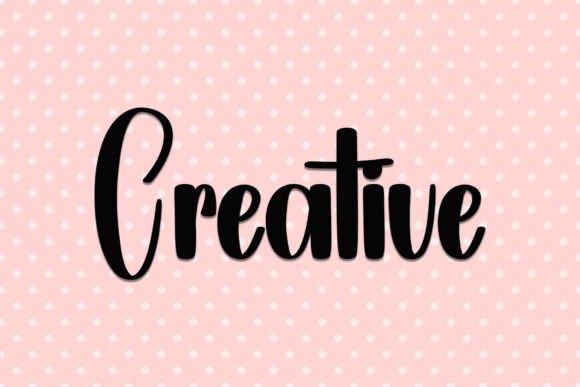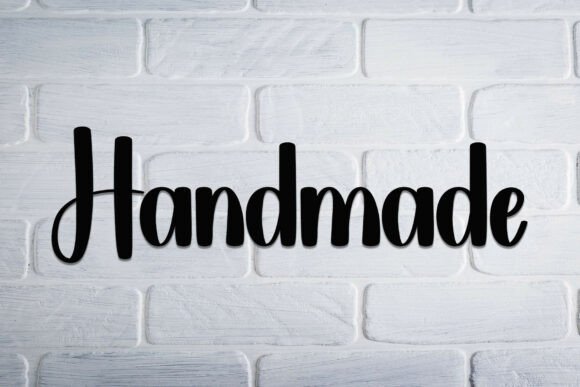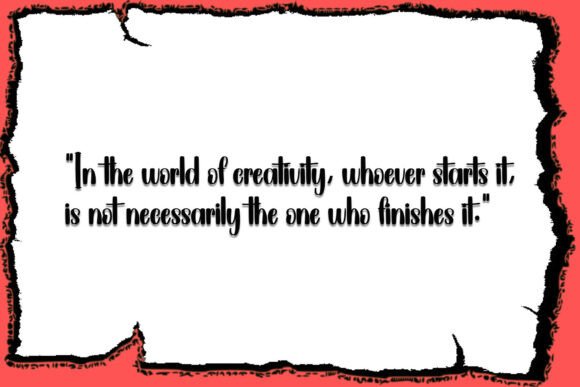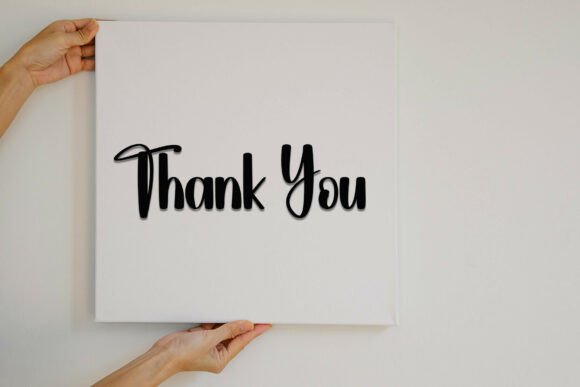
Enter the Backtoschool Font, a delightful, handwritten font that embodies the spirit of a new academic year. Its smooth strokes and friendly vibe make it an ideal choice for designs that need a cheerful, approachable look. With its clean, rounded letterforms and natural flow, the Backtoschool Font is a valuable addition to any designer’s toolkit, perfect for creating engaging classroom themes, kids’ projects, and fun branding that stands out with charm and simplicity.
Back to School Font Key Features
- Font Family: A custom-designed font family specifically created for educational purposes, featuring a unique and playful style.
- Unique Characteristics: The font features a mix of rounded and geometric shapes, with a bold and playful feel, making it perfect for educational materials, posters, and advertisements.
- Character Set: Includes a comprehensive set of characters, including uppercase and lowercase letters, numbers, punctuation marks, and special characters, to ensure versatility and flexibility.
Back to School Font Review
Overall, I’d say the Back to School Font is a fun, playful typeface that’s perfect for educational materials, especially those aimed at younger audiences. It’s got a lot of charm, and the quirky illustrations of apples, pencils, and other back-to-school items add a nice touch.
- Highly legible, even at smaller font sizes
- Fun and engaging for kids (and kids at heart)
- Perfect for educational materials like worksheets, flyers, and posters
- Comes with a range of weights and styles to choose from
- May not be suitable for more formal or professional materials
- Limited language support (only available in English)
- No OpenType features or advanced typographic capabilities
- Not ideal for large blocks of text or lengthy documents
Overall, I think the Back to School Font is a great choice for educational designers who want to add some personality to their materials. It’s not perfect, but it’s a fun and engaging typeface that’s sure to delight kids and adults alike.
The “Back to School Font” is perfect for creating educational materials, such as:
- School posters and flyers
- Infographics about learning and education
- Lesson plans and activity sheets
- Back to school-themed social media posts
Alternatives to Backtoschool Font